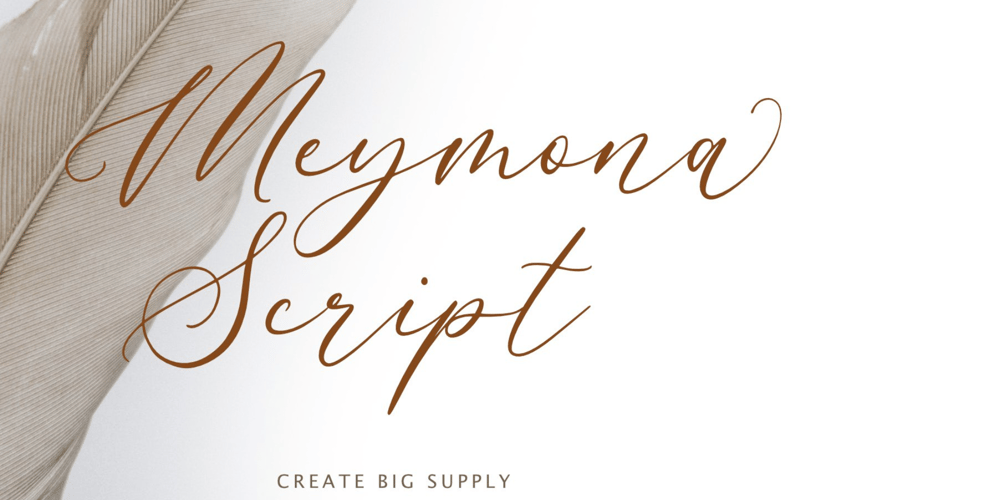
Meymona Script
Meymona Script font
Meymona Script Font Family was designed by Irpan Maulana and published by Create Big Supply. Meymona Script contains 1 styles and family package options. With its elegant and feminine style, this script font is perfect for various design projects. It offers a wide range of features, including uppercase and lowercase letters, numbers, punctuations, multilingual support, ligatures, alternate characters, and PUA encoding. Whether you’re creating logos, labels, magazines, greeting cards, or book covers, Meymona Script font will elevate your designs. Its abundance of alternative swashes allows for creative exploration, giving your projects a unique and personal touch. Explore the endless possibilities with this versatile and stunning font